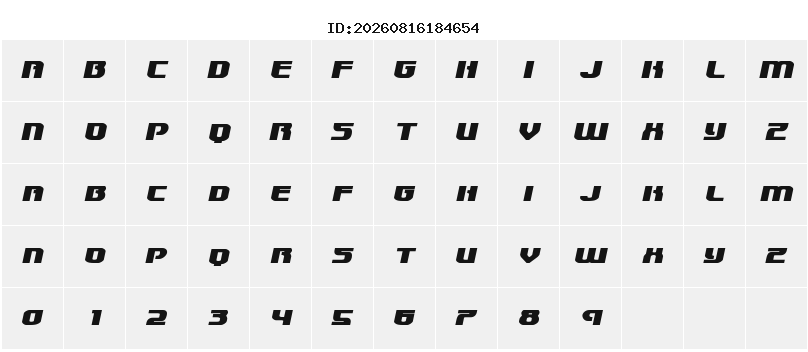
Speedwagon Extra-Expanded Italic Preview
• Font Name: Speedwagon Extra-Expanded Italic
• Font Style: Extra-Expanded Italic
• Full Font Name: Speedwagon Extra-Expanded Italic
About Speedwagon Extra-Expanded Italic.ttf
Speedwagon Extra-Expanded Italic.ttf is a modern, elegant sans-serif font designed for ultimate readability and visual harmony. Perfect for branding, headlines, web design, and print materials.